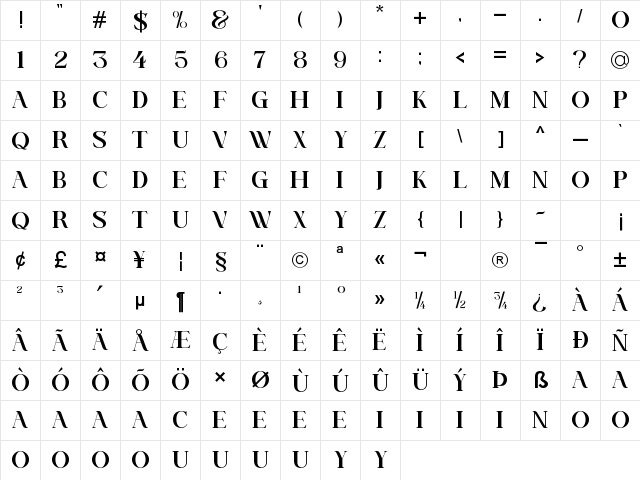
VIRUST Regular Free Font
VIRUST Regular
Foundry: Penatic Studio
Designer: Saiful Fahri
Complete VIRUST Regular glyph index. Displaying only characters natively supported by VIRUST Regular font.
Design Context for VIRUST
VIRUST is a composed and adaptable typeface that performs quietly and consistently across a wide range of design contexts.